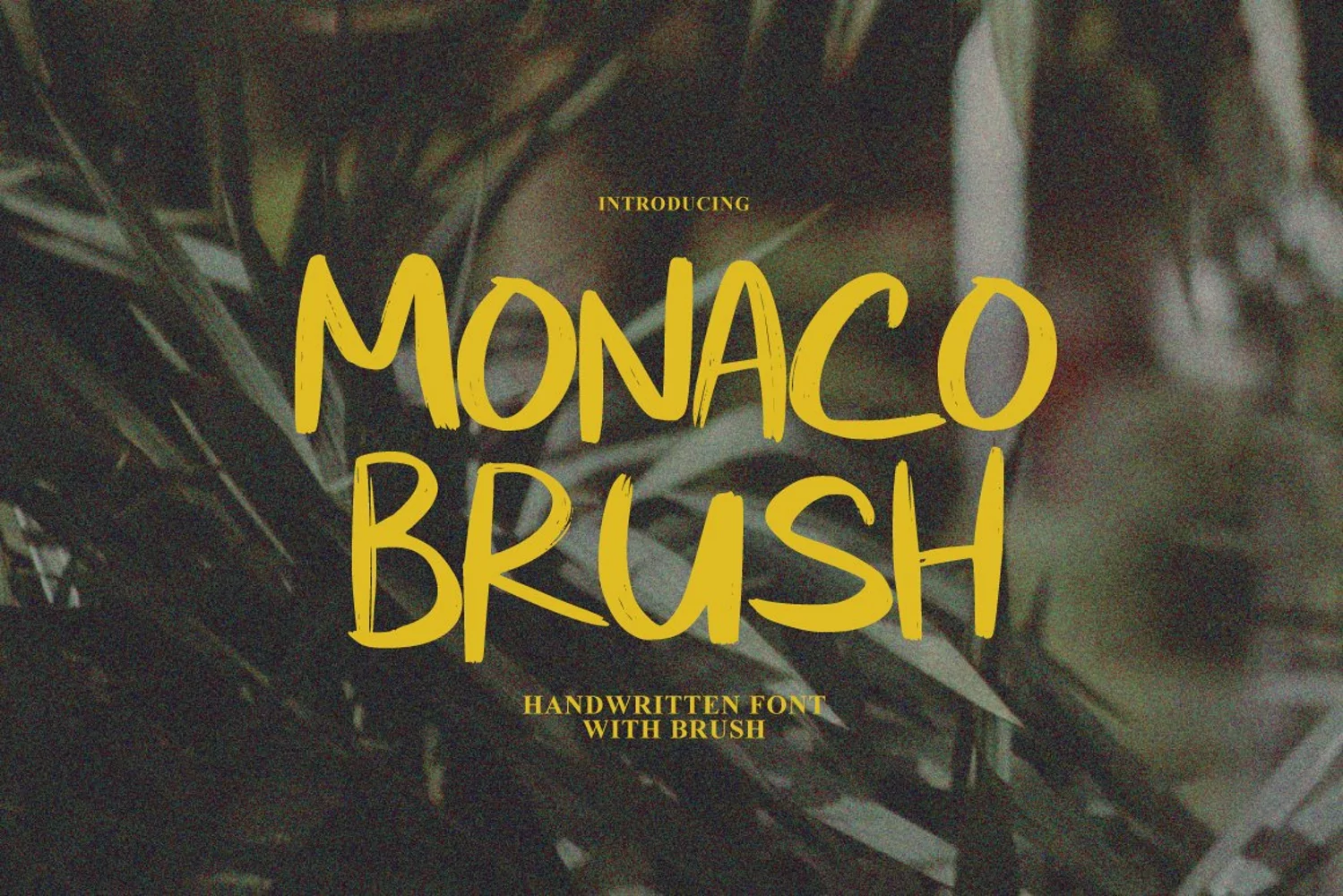
Monaco Brush
Monaco Brush is a typeface with personality. You can use it as a logo, badge, insignia, packaging, headline, poster, etc The alternative characters in this font were divided into several OpenType features such as Stylistic Alternates, Stylistic Sets, and Ligature. The OpenType features can be accessed by using OpenType program such as Adobe Illustrator, Adobe Photoshop, and Adobe InDesign.